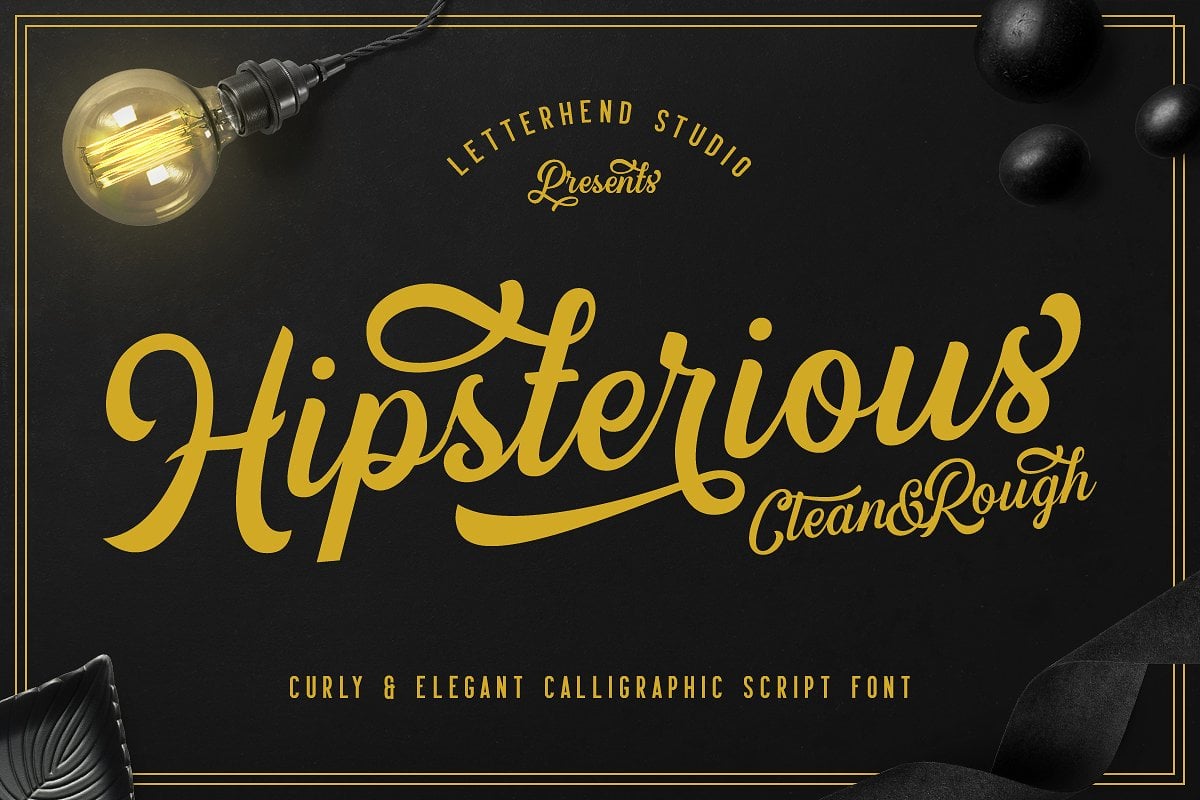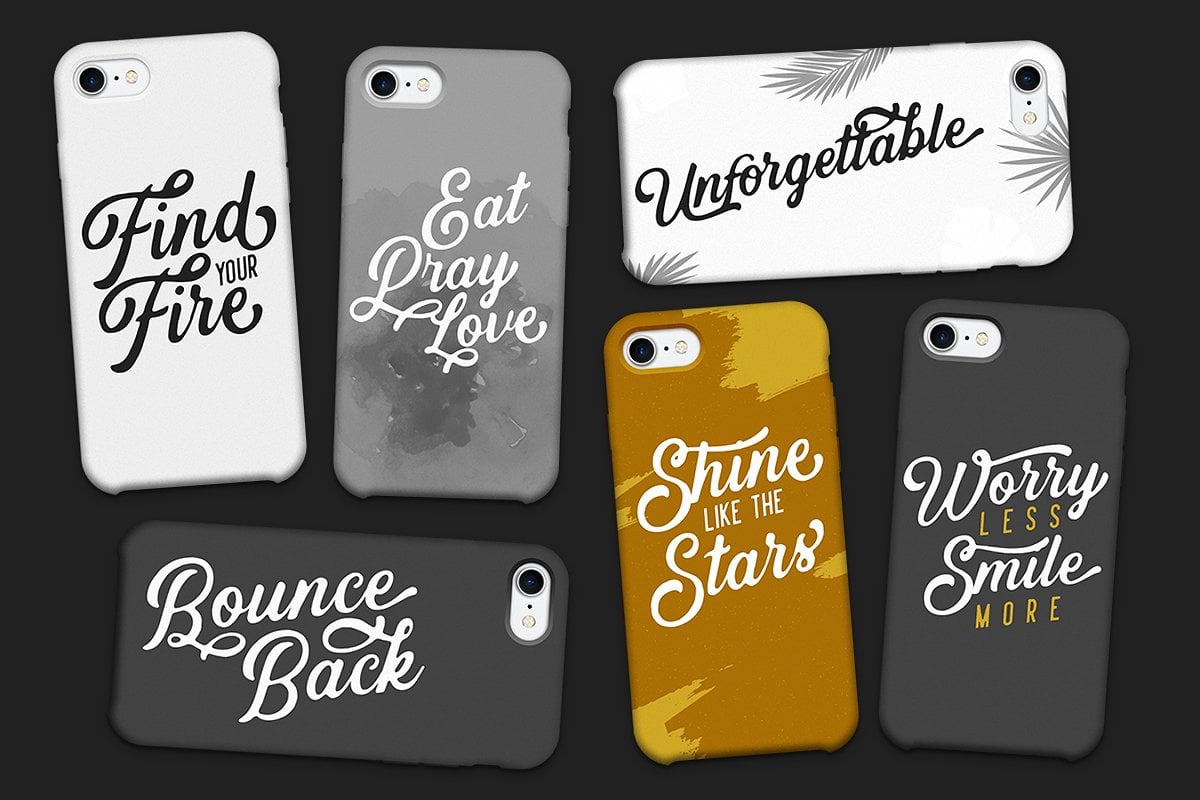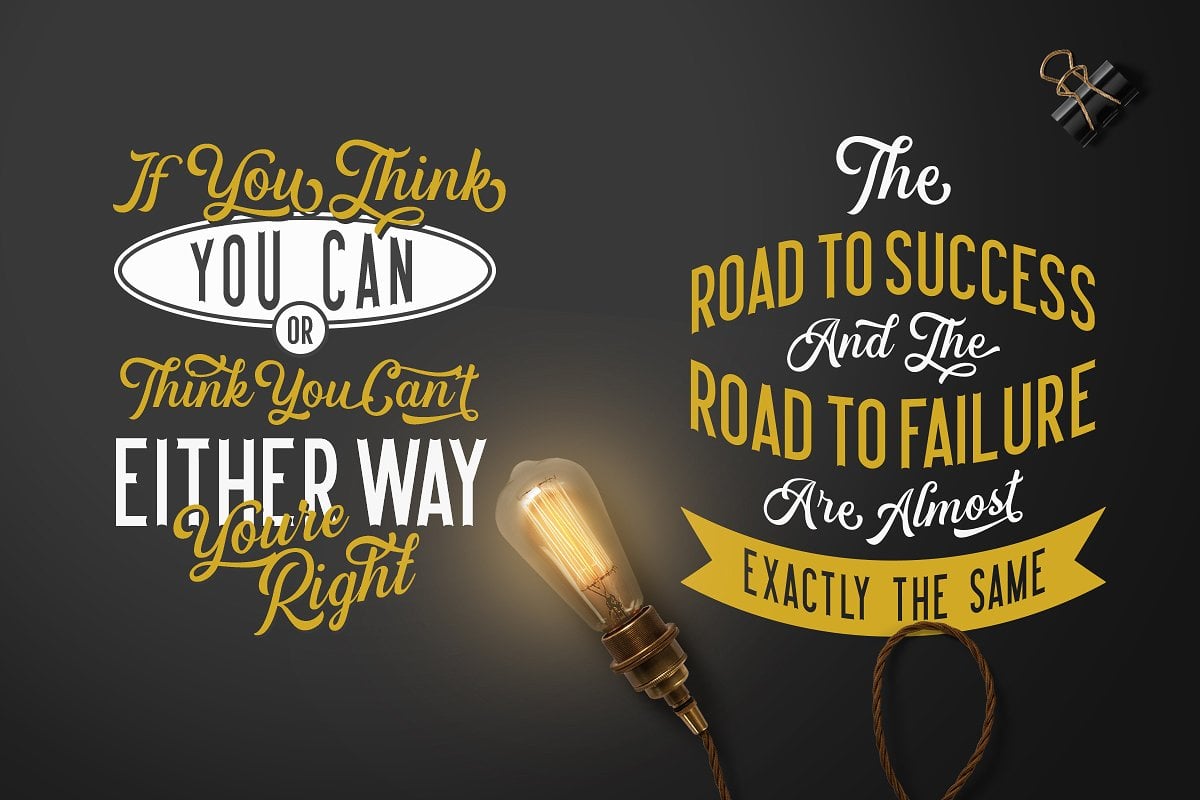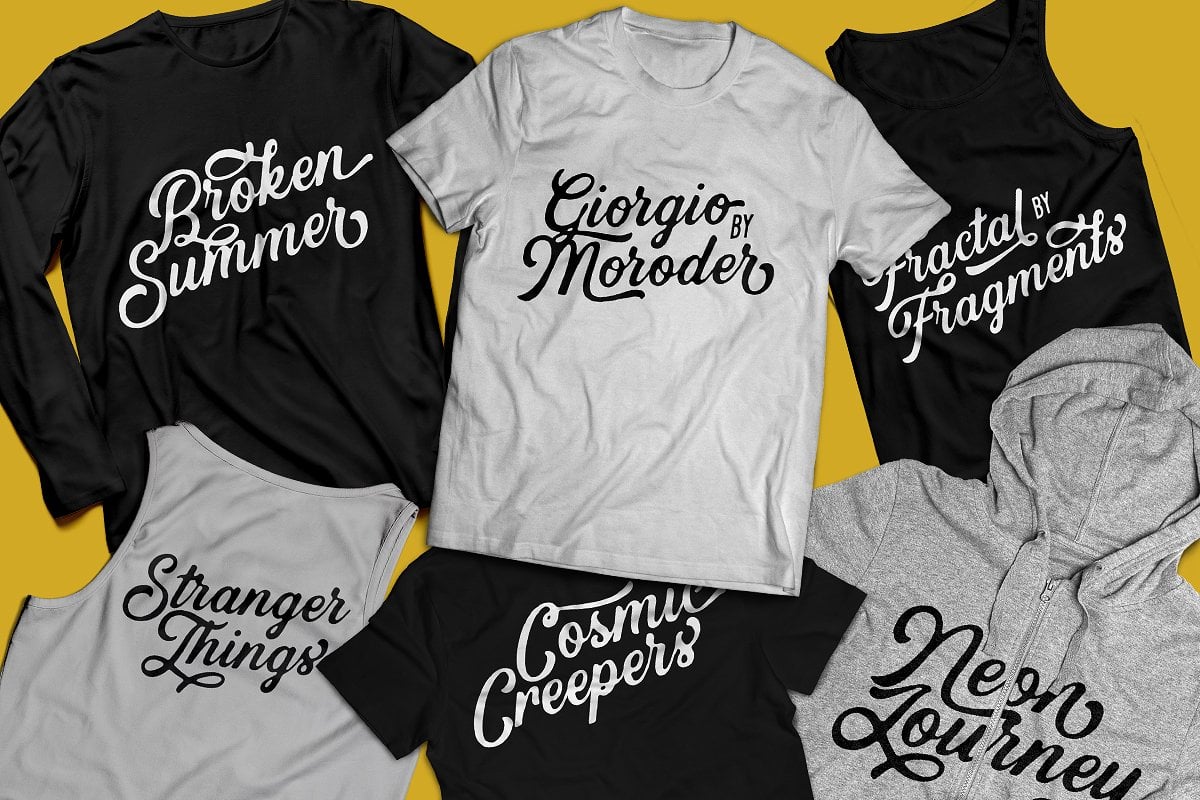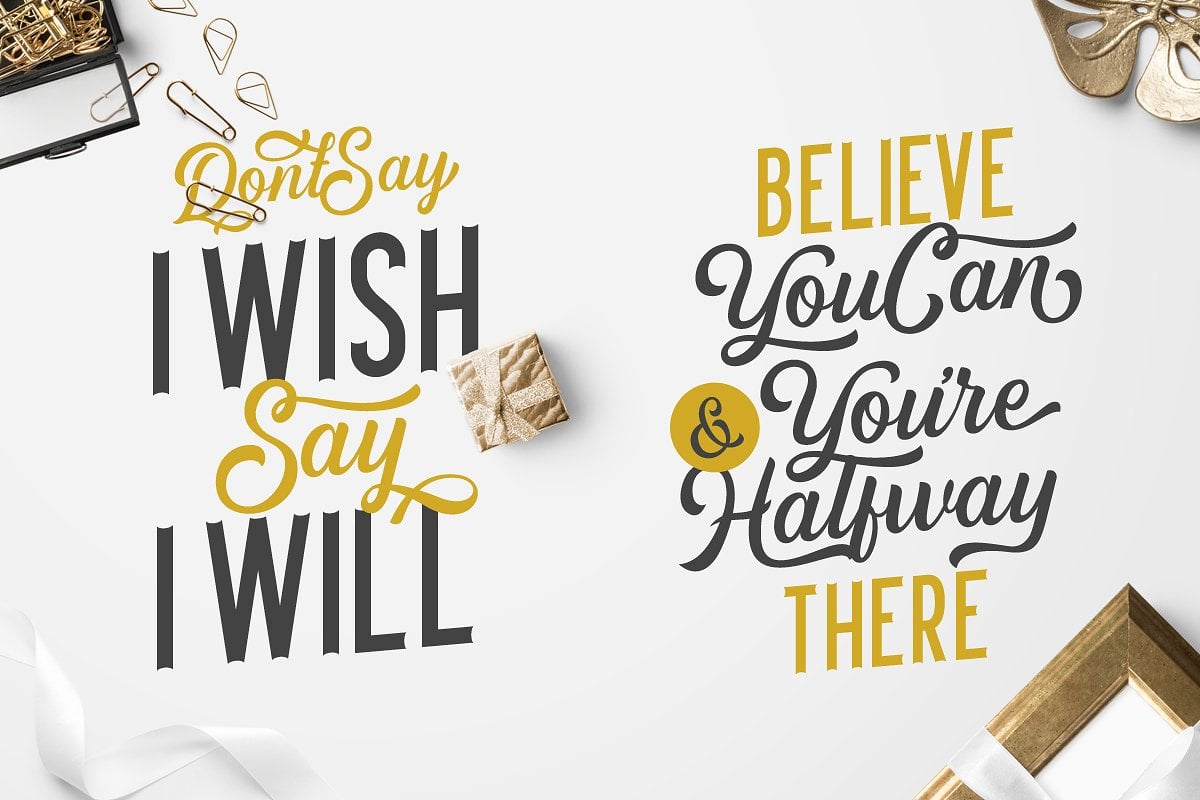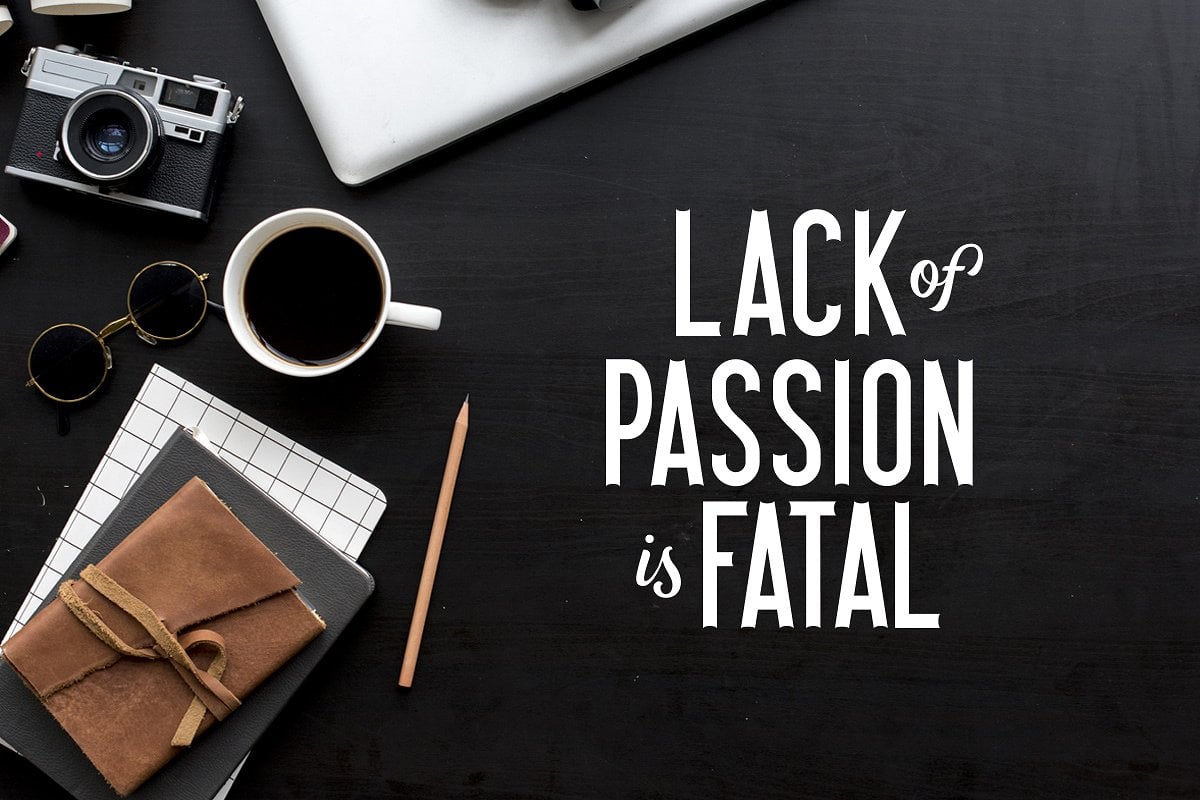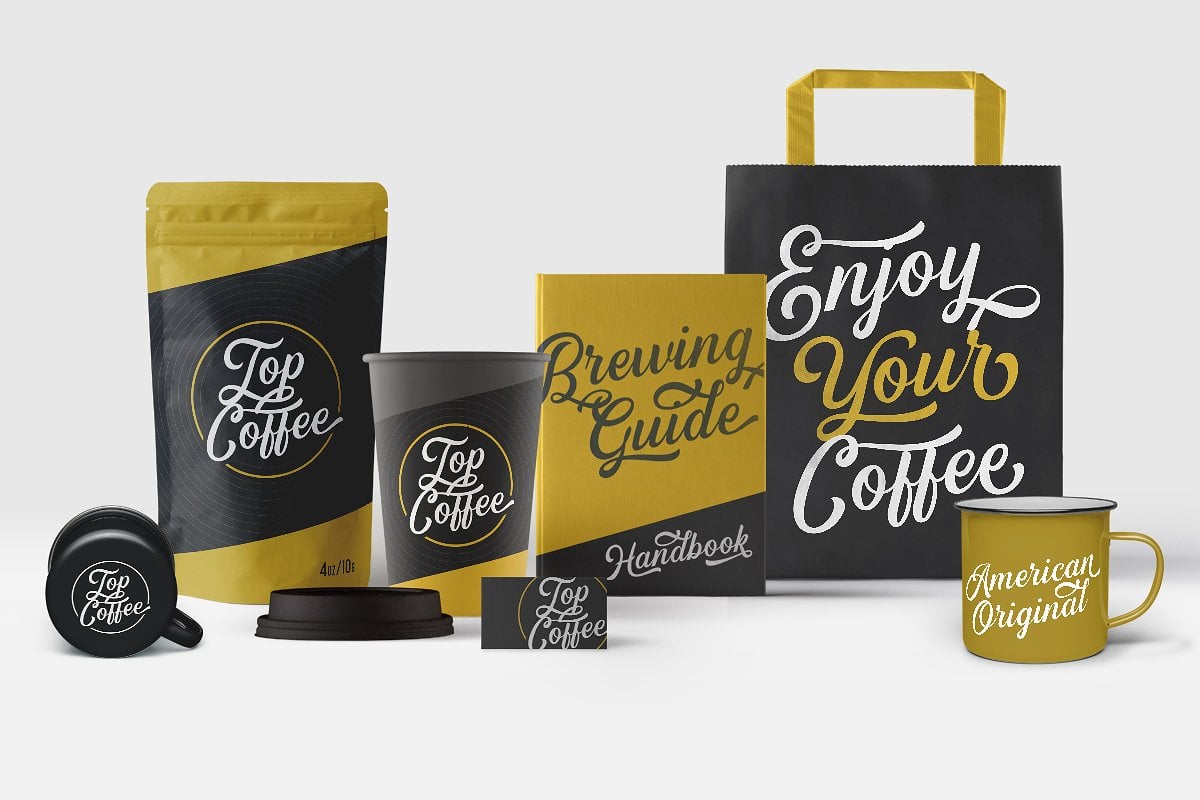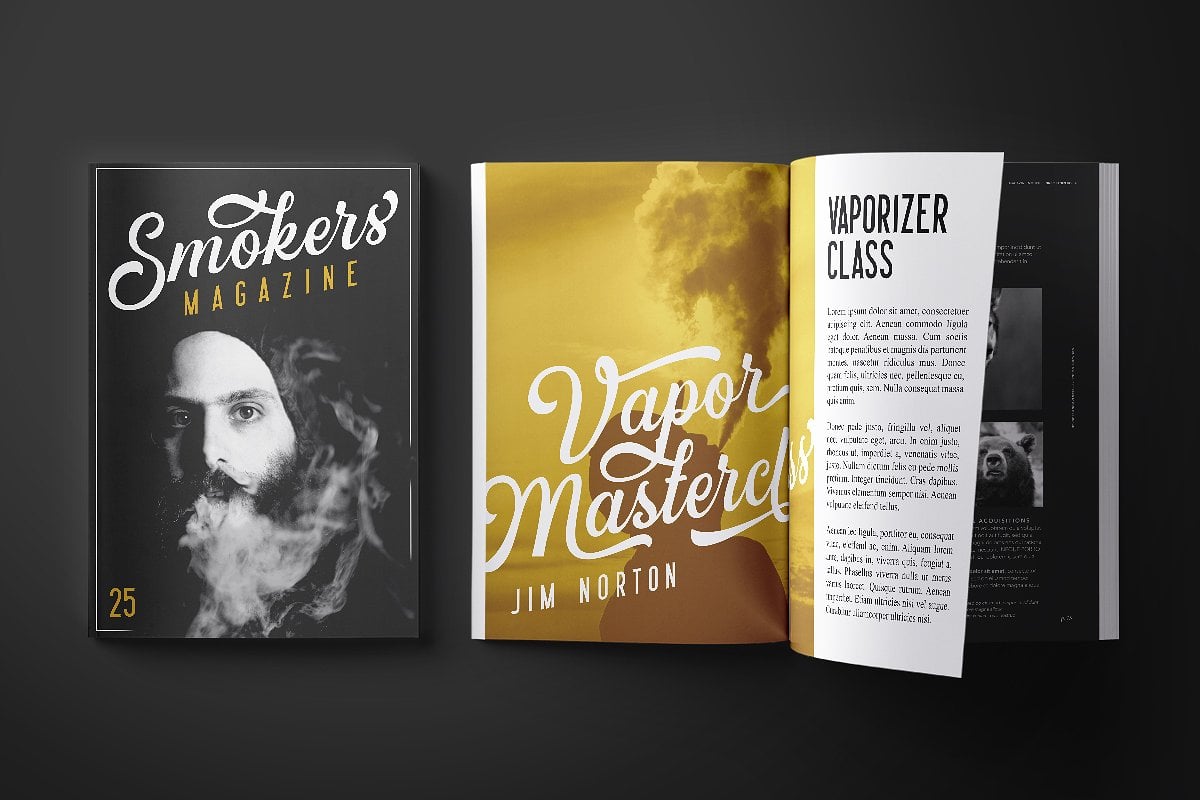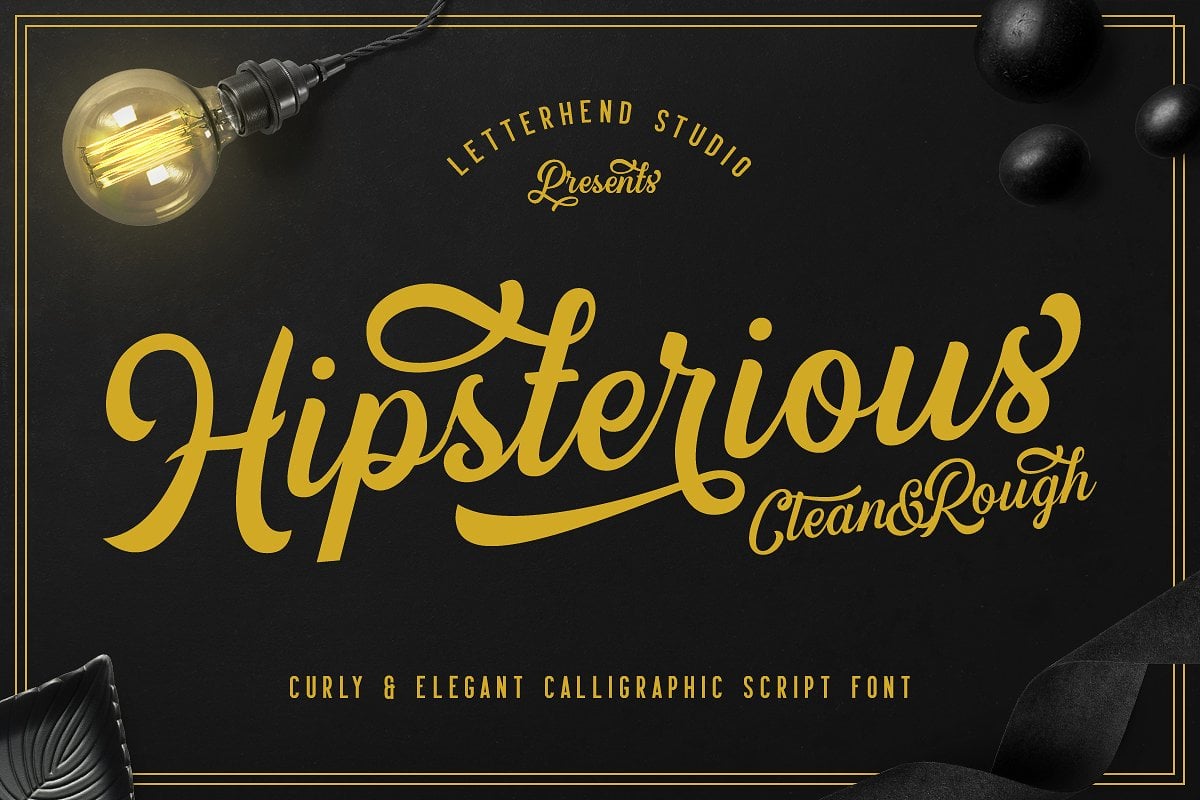
Hipsterious Typeface
Hipsterious is casual and fun script that stands out from the crowd. Consist of two types, a regular and rough. Perfect to be used especially for logo type, signature, photography, quotes, apparel design, and any design needs. As usual, the font comes with many opentype features such as ligatures, stylistic set alternate, etc and also support multilingual.